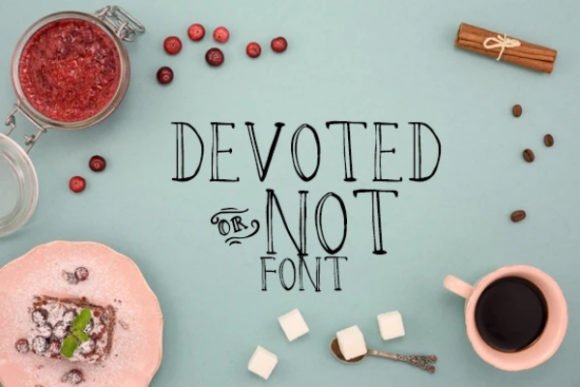
Introduction to Devoted Font
Devoted is a luxurious serif font.
It’s inspired by classic typography and brings its own unique style to any design project Whether you’re looking for fonts for Instagram or calligraphy scripts for DIY projects, Devoted will turn any creative idea into a true piece of art.
Key Features of Devoted Font
Why Choose Devoted Font?
Devoted Font offers exceptional quality and versatility, making it a valuable addition to your design toolkit. Whether you’re creating for personal projects or commercial use, Devoted Font delivers professional results.